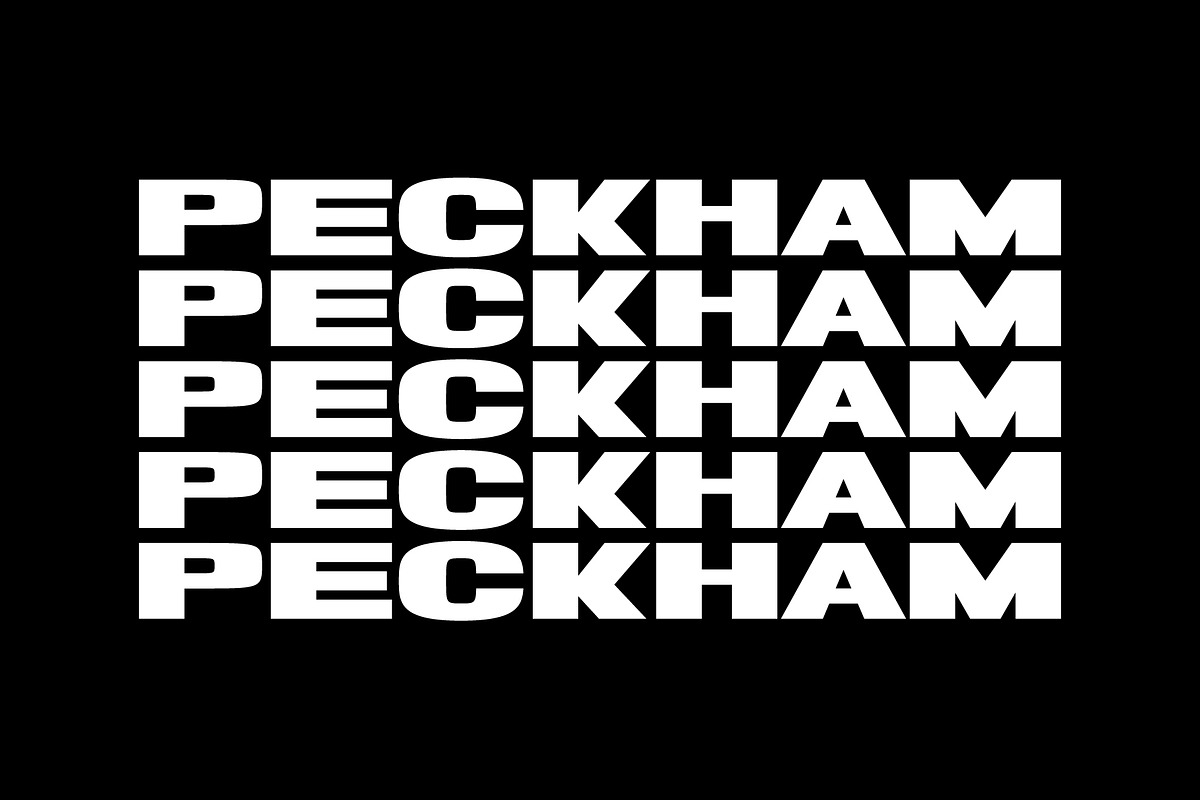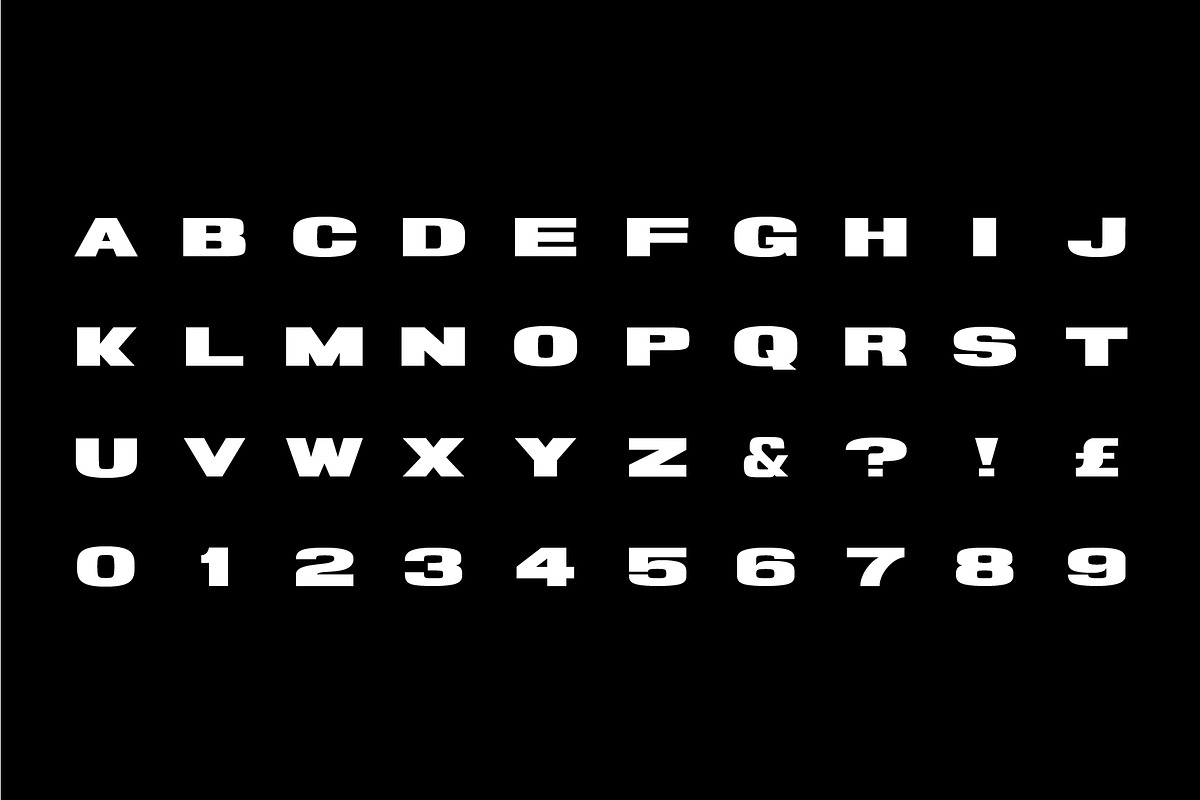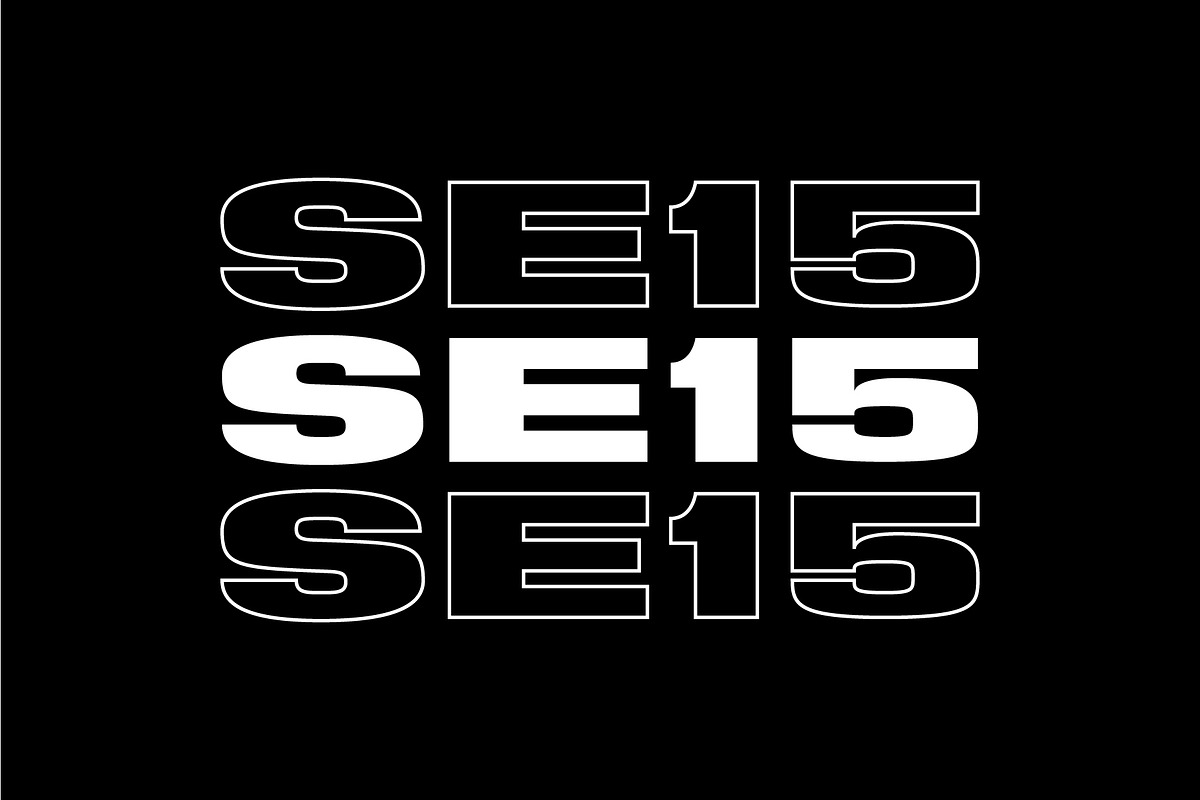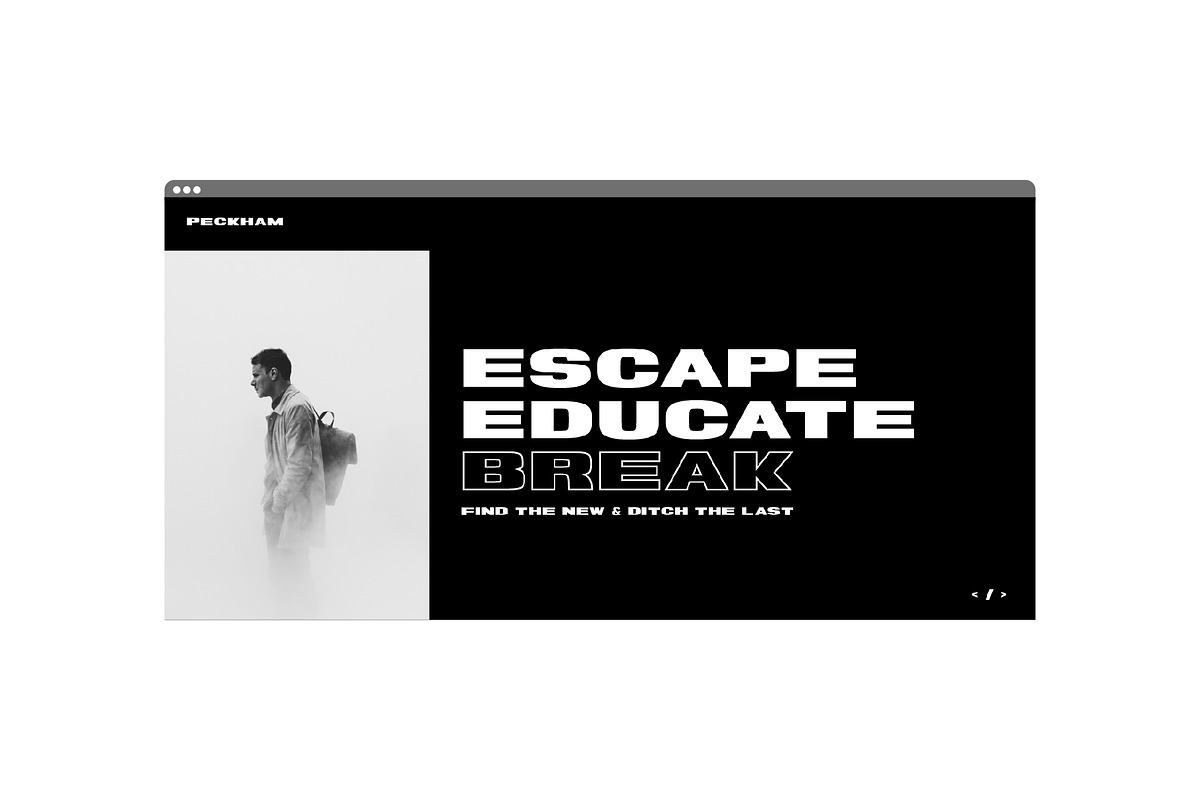
TJ Peckham
Type Junction Peckham is a fully-kerned titlecase display typeface built for the sports branding industry and similar projects. Peckham is chunky and impactful with an unapologetic presence. This typeface features 100+ characters including punctuation and symbols.